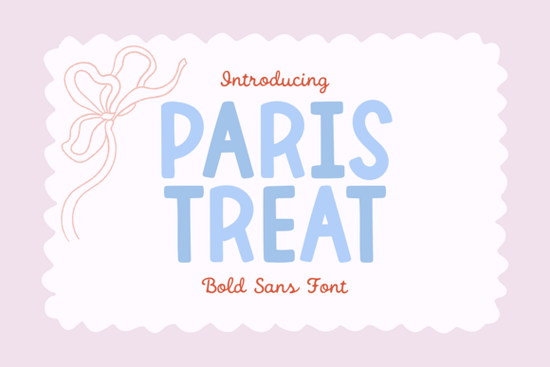
If you’ve been searching for a bold, chunky font that works just as well on a T-shirt as it does in a Canva social post, the Paris Treat Font might be exactly what your creative toolkit needs. Designed with thick strokes and smooth curves, it delivers a playful yet confident look that stands out without feeling cluttered. Whether you're cutting vinyl with a Cricut, designing stickers, or building a small brand identity, this retro-inspired display font handles it all cleanly and consistently.
What makes Paris Treat work so well for crafters and designers?
One of the biggest challenges when using bold fonts for physical crafts like heat-transfer vinyl or sticker cutting is ensuring clean edges and no stray fragments. Paris Treat was built with that in mind. Its letterforms are optimized for precision cutting on machines like Cricut and Silhouette, meaning fewer snags and less weeding time. The weight is substantial enough to read clearly at small sizes but still retains personality at large scales.
It’s also versatile across digital platforms. You can drop it into Canva for Instagram stories, use it in print-on-demand mockups, or pair it with simpler sans-serif fonts for contrast. For example, if you’re working on a bakery-themed design, you might combine it with something lighter like the Banana Cupcake Font to balance whimsy and clarity.
Who should consider using this font?
- Print-on-demand sellers looking for standout typography for mugs, shirts, or tote bags.
- Small business owners creating logos, packaging, or promotional materials with limited design experience.
- Crafters who want reliable, machine-friendly fonts for vinyl, paper, or fabric projects.
- Social media creators needing bold headlines that pop against busy backgrounds.
Because Paris Treat leans into a retro-meets-modern aesthetic, it pairs especially well with nostalgic color palettes (think mustard yellow, olive green, or dusty rose) and hand-drawn elements. It’s not meant for body text but that’s not a drawback. Display fonts like this shine when used intentionally for short phrases, names, or calls to action.
How does it compare to other bold sans-serif fonts?
Among Creative Fabrica’s collection of playful sans-serifs, Paris Treat holds its own with a slightly rounded, friendly edge that avoids feeling too rigid. Compare it to the sharper, industrial vibe of Stencil Army Font, or the elegant curves of Amour Magnifique Font. Each serves a different mood: Stencil Army brings military precision, Amour Magnifique leans romantic, while Paris Treat lands squarely in upbeat, approachable territory.
If you prefer a more neutral bold sans, Bourgueil Font offers clean geometry without the retro flair. But if your project needs instant visual energy like a summer sale banner, kids’ party invite, or coffee shop chalkboard sign Paris Treat adds character without overwhelming the message.
Tips for getting the best results
When using Paris Treat in layered designs:
- Avoid tight kerning the thick strokes can merge if letters are too close.
- Use high-contrast backgrounds. White on black or cream on navy ensures readability.
- Limit usage to one or two words per design unless you’re going for an intentional “maximalist” look.
- Test cut first if using with vinyl especially on intricate letters like “R” or “Q.”
And remember: while it’s tempting to pair it with another bold font, sometimes the strongest designs come from contrast. Try pairing Paris Treat with a thin, minimalist sans-serif for headlines vs. captions, or use it solo with generous spacing and negative space.